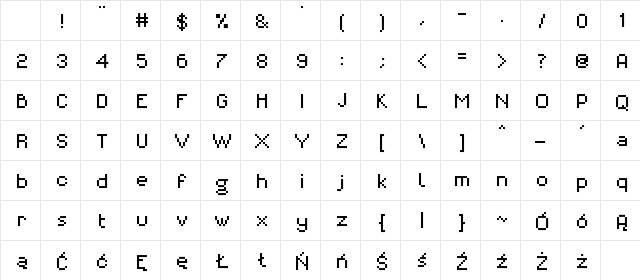
MiniForma is a composed and adaptable typeface that performs quietly and consistently across a wide range of design contexts.
Pro Tip: Use MiniForma in both headline and body roles to test its range before committing to a single application.